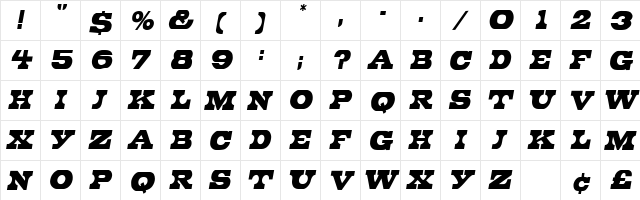
PeduncleNarrow Oblique Font Preview
PeduncleNarrow Oblique
Design Context for PeduncleNarrow Typeface
PeduncleNarrow is a composed and adaptable typeface that performs quietly and consistently across a wide range of design contexts. The dynamic lean of this cut emphasises speed and emphasis in any layout. The condensed width makes it efficient for tight spaces without sacrificing legibility.
Pro Tip: Use PeduncleNarrow for emphasis, pull quotes, and subheadings where its slanted energy can add rhythm to the layout.